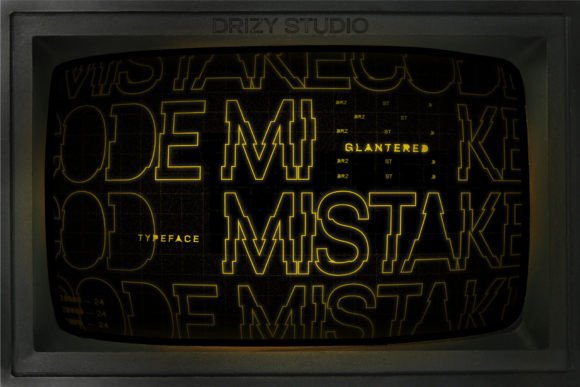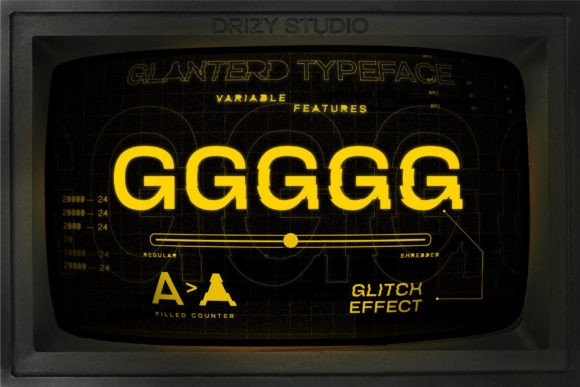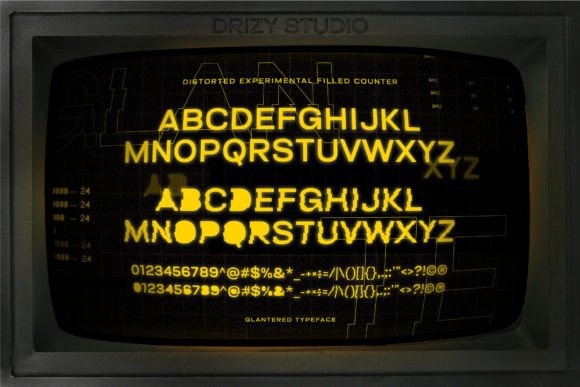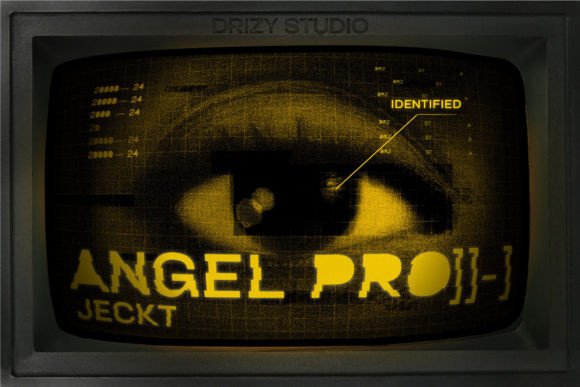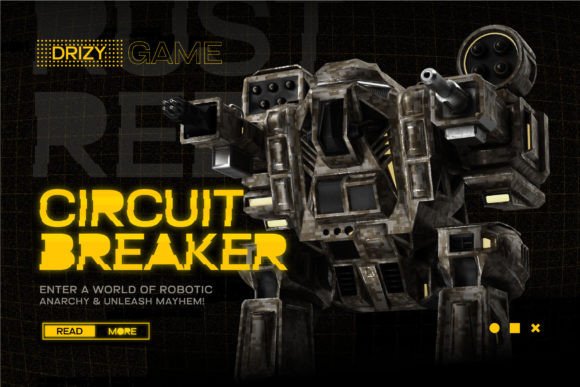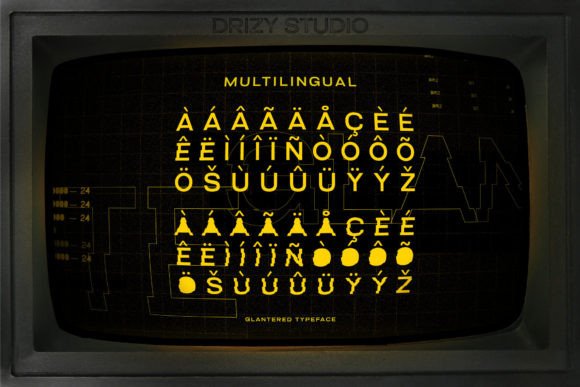
Breaking the Mold: Unleash Your Creativity with the Glanterd Font
Have you ever been stuck in a creative rut, staring at a blank canvas or screen, desperately searching for that spark that sets your design ablaze? You’re not alone. We’ve all been there, but what if I told you that there’s a way to shake things up and push the boundaries of creativity? Enter the Glanterd Font, a game-changing typeface that will infuse your designs with a sense of distortion and chaos.
This unconventional masterpiece is designed to stand out in a world of uniformity, making it the perfect tool for designers who want to make a statement. Whether you’re a seasoned pro or just starting out, the Glanterd Font offers a unique opportunity to add some much-needed excitement to your work. By incorporating this glitch font into your designs, you’ll be able to tap into your creative potential and produce work that truly stands out from the crowd.
Glanterd Font Key Features
- Font Family: Glanterd is a modern sans-serif font family designed for digital use.
- Unique Characteristics: Features a unique blend of geometric and organic shapes, creating a distinctive and modern aesthetic.
Glanterd Font Review
I recently had the chance to work with the Glanterd font, and I must say, it’s a unique and intriguing addition to any design project. ✨ Here are some of the things that work well:
- Exotic aesthetic: Glanterd has a distinct, otherworldly feel that can add a touch of mystery to any design.
- Highly customizable: With its wide range of weights and styles, you can easily adapt Glanterd to suit your specific design needs.
- Effective for headlines: The font’s bold, attention-grabbing qualities make it perfect for use in headings and titles.
- Difficult to read at small sizes: Glanterd’s intricate details can make it challenging to read at very small font sizes.
- Limited legibility in body text: While it’s great for headlines, Glanterd can be difficult to read in large blocks of text.
- May not be suitable for all audiences: The font’s exotic feel may not be to everyone’s taste, and some users may find it distracting or difficult to read.
Overall, I think Glanterd is a great choice for designers looking to add a touch of uniqueness to their projects. While it may have some limitations, its customizability and bold aesthetic make it a valuable addition to any design toolkit.
Glanterd Font is ideal for:
- Creating elegant headings and titles
- Designing custom logos and typography-based designs
- Enhancing editorial content with a touch of sophistication